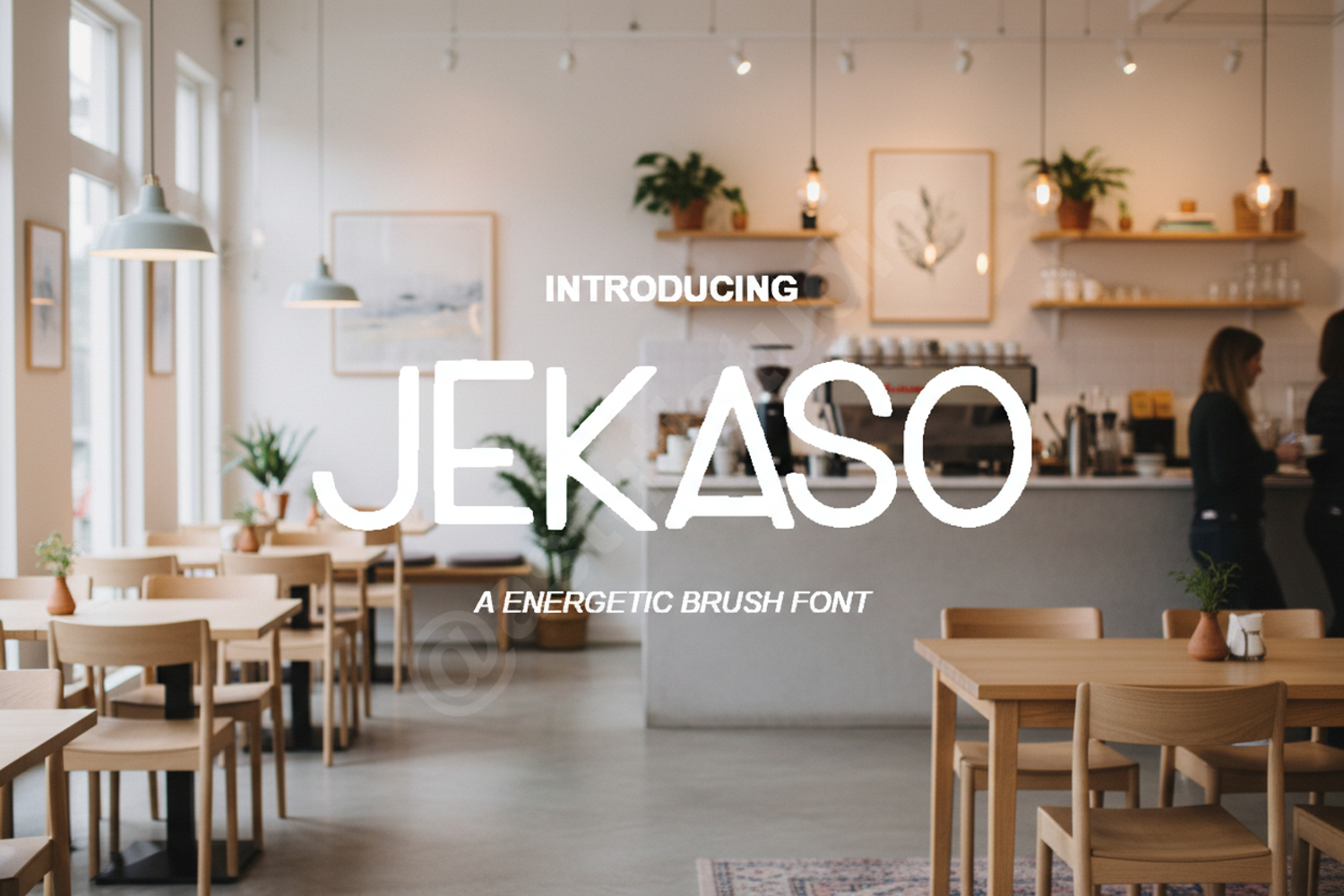
Jekaso - Modern Geometric Display Sans
Jekaso
Jekaso is a premium display font designed for creators who demand both elegance and impact. With its clean lines and geometric precision, Jekaso offers a contemporary aesthetic that fits perfectly into any high-end design project. Whether you are building a brand from scratch or looking for the perfect headline font, Jekaso delivers a professional touch with every character.
- Full set of uppercase and lowercase letters
- Branding and Identity: Create memorable logos and corporate stationery.
- Editorial Design: Perfect for magazine headers, titles, and layouts.
- Digital Marketing: Elevate your social media graphics and website banners.
- Print Media: Ideal for posters, business cards, and high-quality packaging.
- Modern Signage: Clean legibility makes it perfect for physical displays and signage.